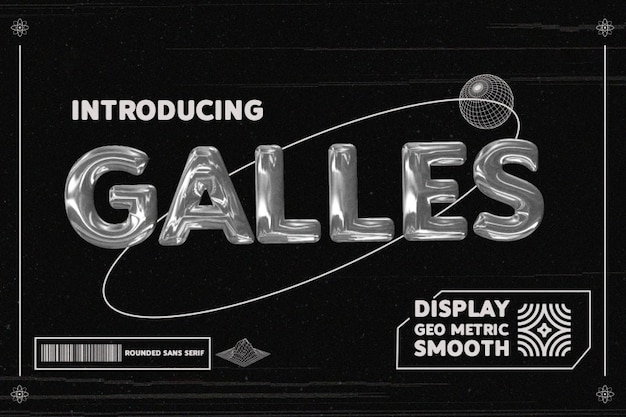
Galles Font
Drizy Studio
Retro and geometrical, Galles echoes a metal-inspired aesthetic from the past. Its design pays homage to vintage geometric fonts with a metallic twist. Reflecting an era of industrial innovation, this font's retro vibes bring a metallic sheen to typography, invoking a nostalgic yet modern appeal. Ideal for capturing a blend of vintage charm and futuristic style in design compositions.
Galles Regular (400)